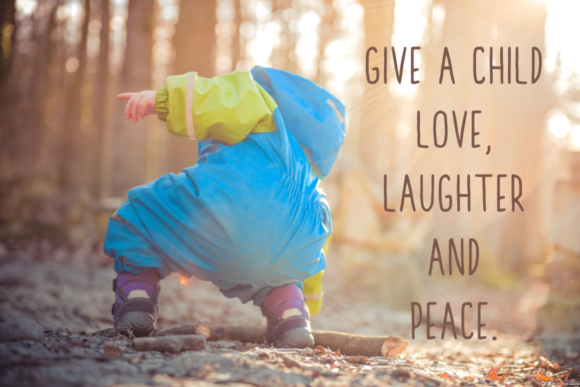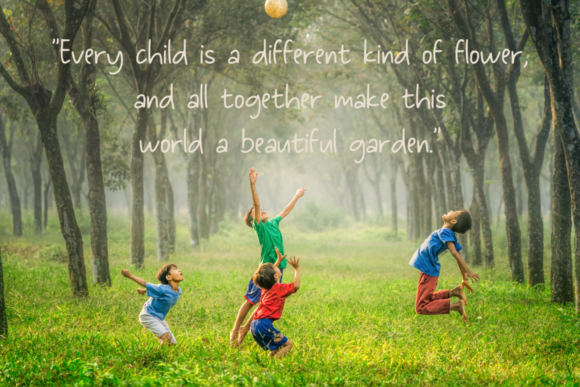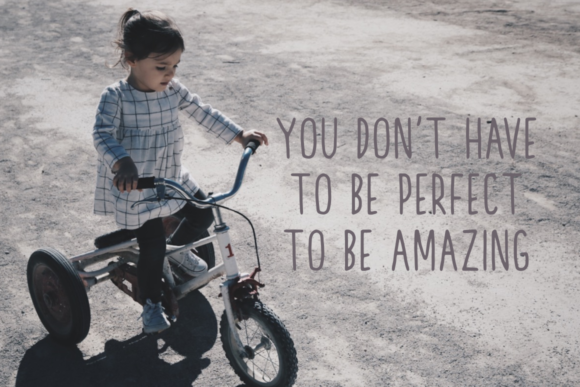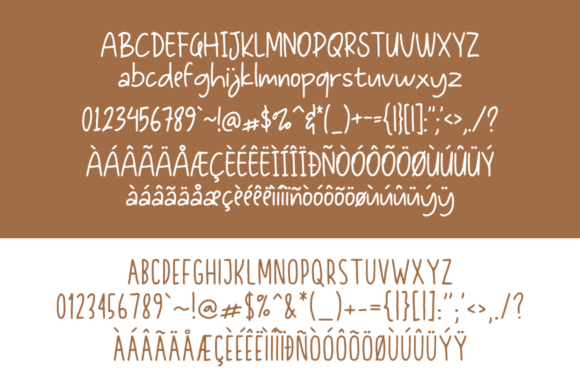
Bochild Duo Font
About Bochild Duo Font
Bochild Duo combines two sweet and simple handwriting fonts. It’s a whimsical font duo that will turn any design project into a stand out.